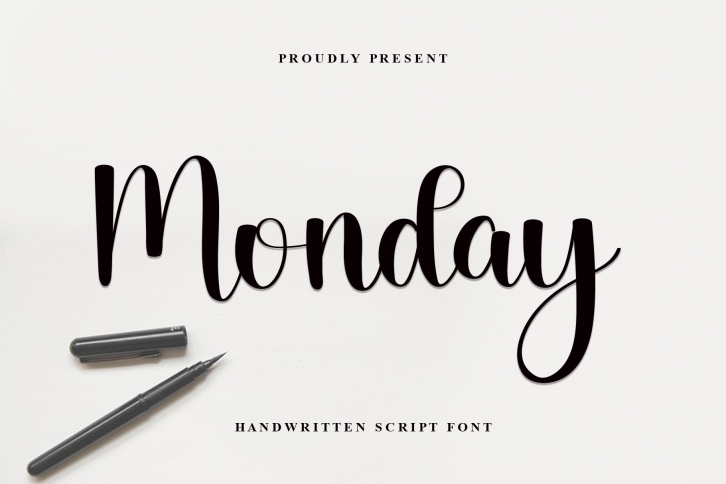
Monday is an enchanting handwritten font. This versatile script font has a wide spectrum of applications ranging from greeting cards to headlines and is guaranteed to add a romantic feel to your next project.